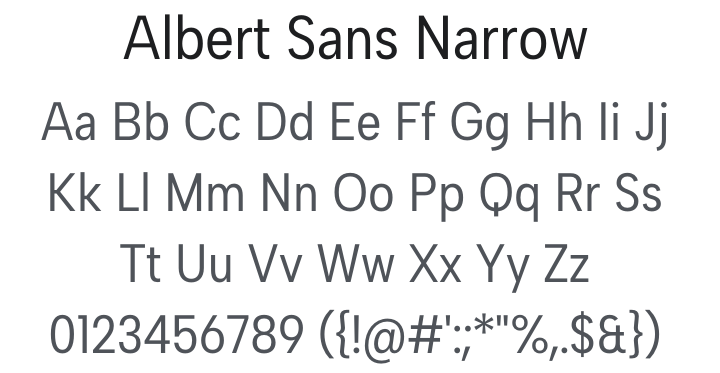
Albert Sans Narrow Font Family
by Andreas Rasmussen
About Albert Sans Narrow
Albert Sans is a modern geometric sans serif family, inspired by the type-characteristics of scandinavian architects and designers in the early 20th century. The Albert Sans family includes nine weights (Thin to Black) in two widths (Normal and Narrow).
Designed by the Danish type designer Andreas Rasmussen from a.Foundry.